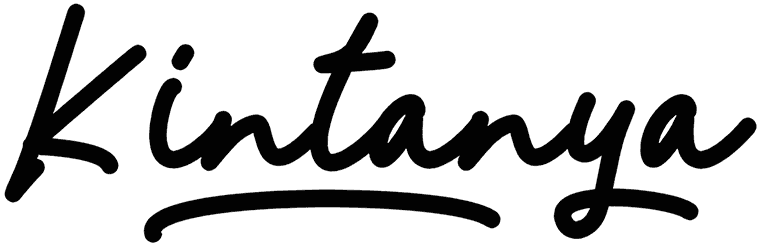
Kintanya Font
Ditch the plain style and immerse more real attention by applying this sweet script font into your graphic design. Draw the viewers to the natural artistic handwritten characters of Kintanya that are eager to convey intimate and devilish sense at any moment.
The superb quality of this handwritten font enables your designs to stand out from the crowd, save your time, and instantly turn your words into the true state of the art.